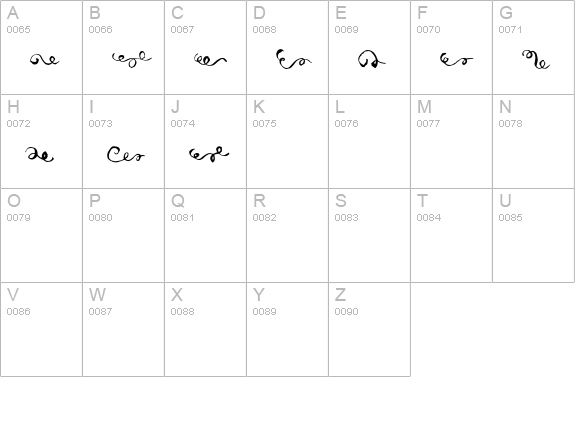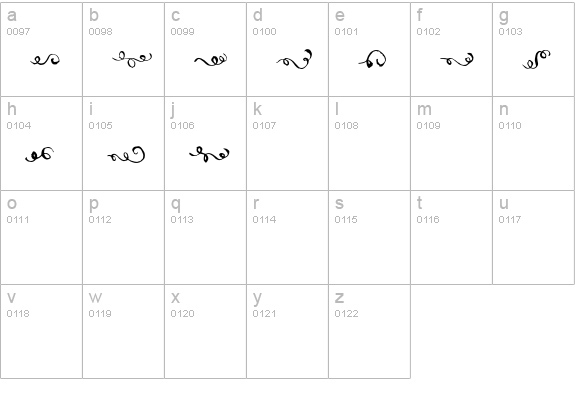
Michelle Ornaments Font Details
Michelle Ornaments font is a stunning display font that adds a touch of elegance and sophistication to any design project. This ornate font features intricate details and decorative elements that make it perfect for creating eye-catching titles, headers, and invitations. With its delicate swirls and curves, Michelle Ornaments font exudes a sense of luxury and style. Whether you're working on a wedding invitation, branding project, or any other creative endeavor, this font is sure to make a statement. And the best part? Michelle Ornaments font is completely free to download at FontsMarket.com. So go ahead and add a touch of glamour to your designs with this exquisite font today!